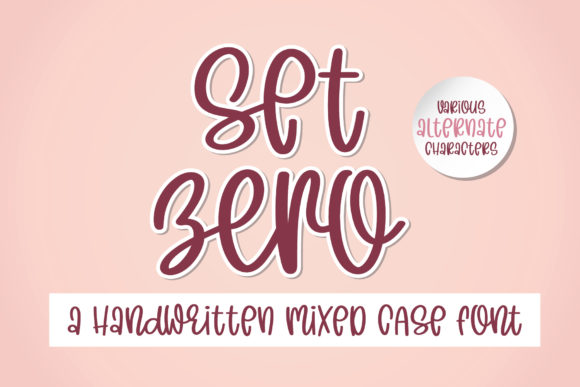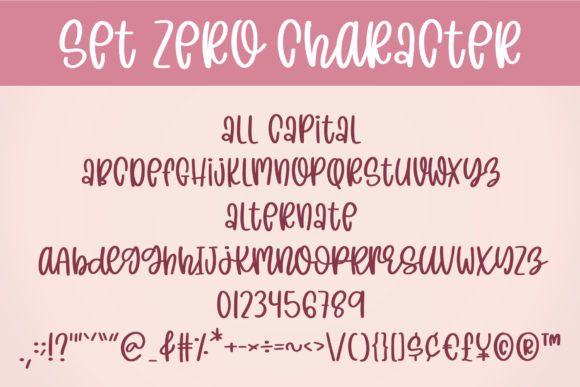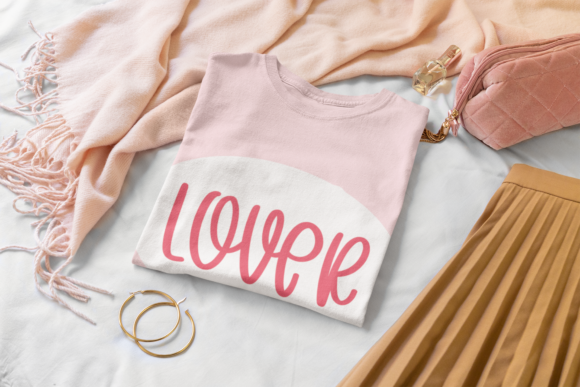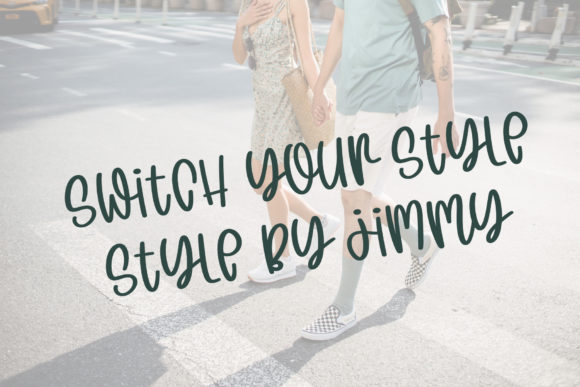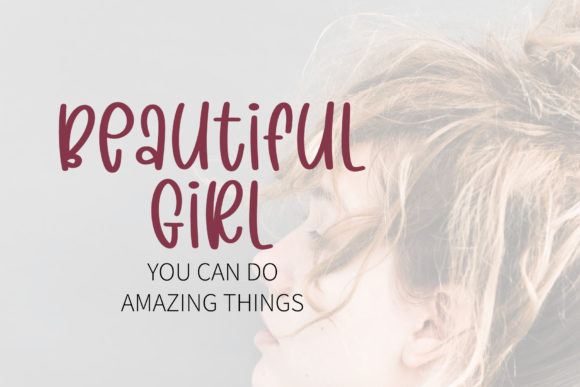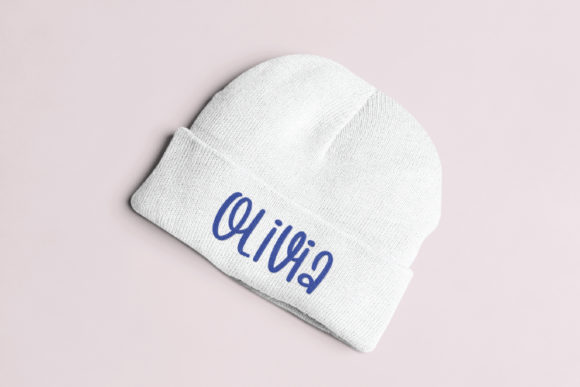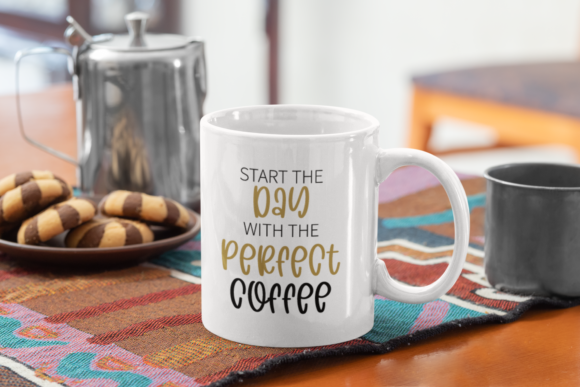
Set Zero Font
Set Zero is a smooth and joyful handwritten font. Its natural and unique style makes it incredibly fitting to a large pool of designs. The only limit is your imagination!